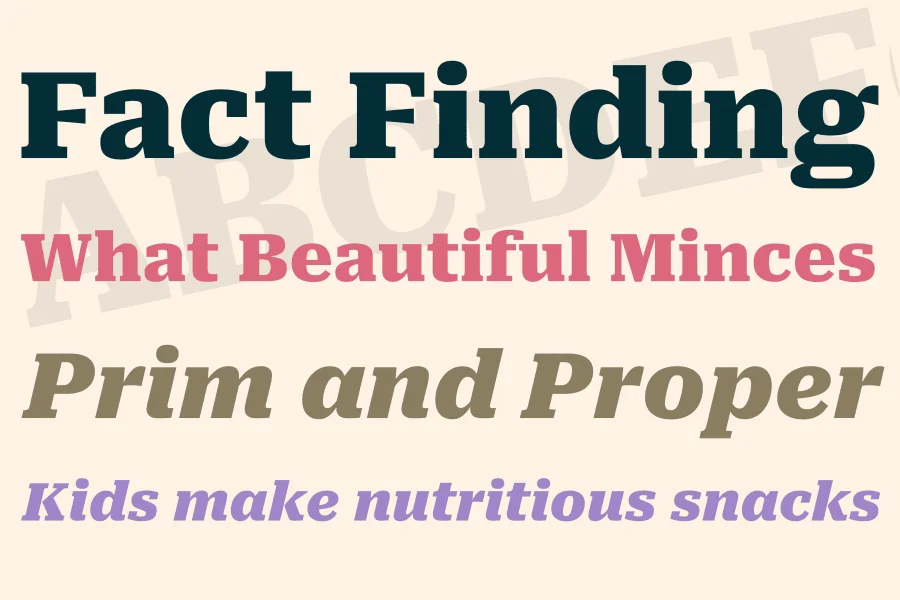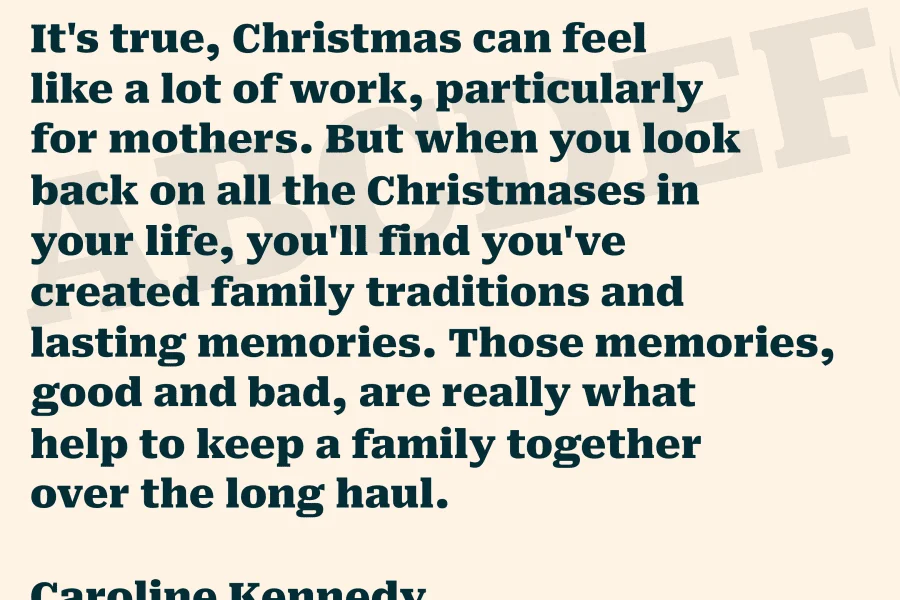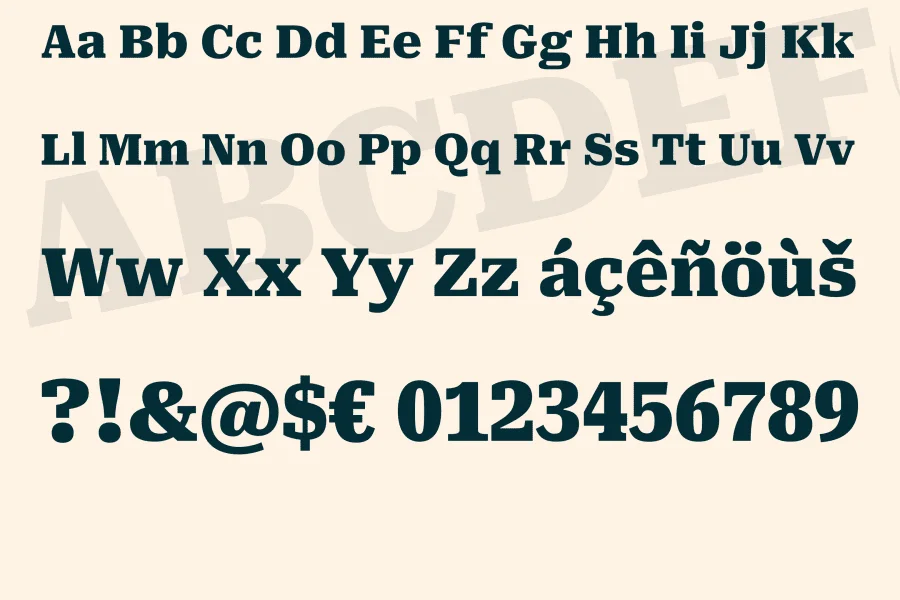
Avrile Serif is developed over Roboto Serif & Noto Serif fonts; with main changes being importing Greek/extended Greek support from Noto Serif, and flattening lining tabular figures on Roboto Serif.